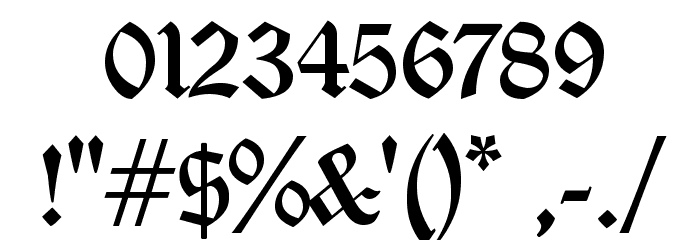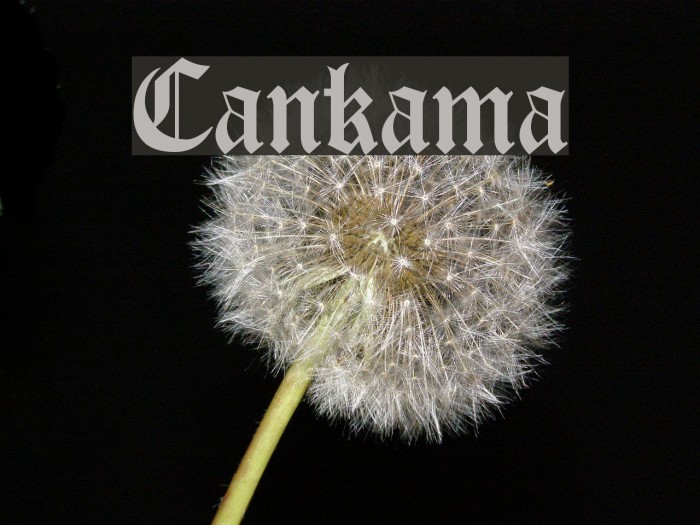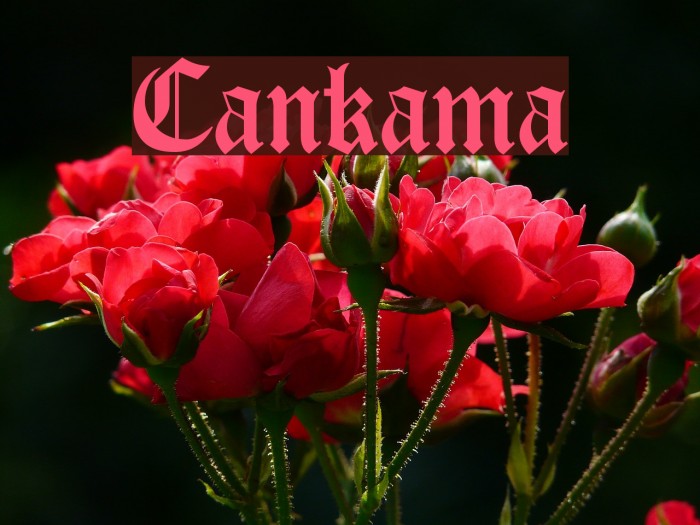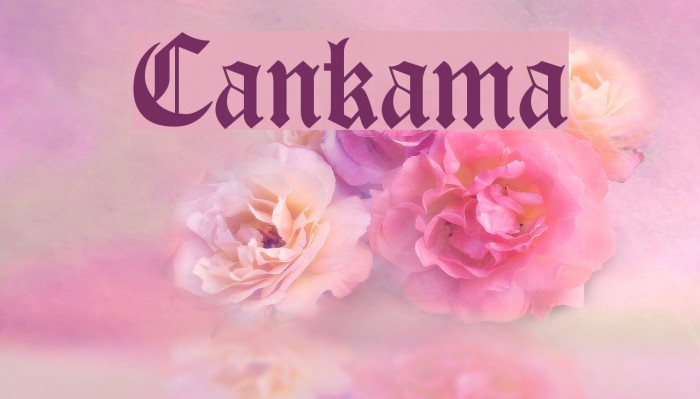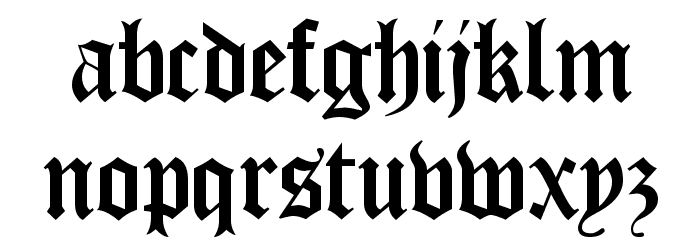
Cankama Font
Cankama Description
This font features a traditional blackletter style, characterized by its ornate and intricate design. The letters have sharp, angular lines with dramatic flourishes and a strong vertical emphasis. The uppercase letters are particularly elaborate, with decorative elements that enhance their Gothic appearance. The lowercase letters maintain the same angularity but are slightly more subdued, allowing for readability while preserving the overall aesthetic. The numerals are consistent with the style, featuring similar angular strokes and embellishments. The special characters are designed to match the ornate nature of the alphabet, making them suitable for decorative purposes.
| Overall Style | Vintage |
| Use Case | Logos, Headlines, Decorative text |
| Proposed Projects | Ideal for historical documents, certificates, wedding invitations, and branding that requires a classic or medieval touch. |